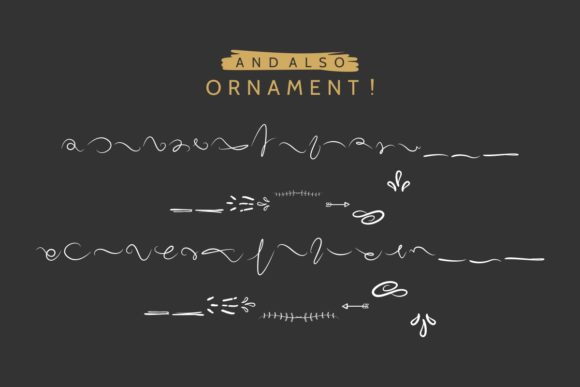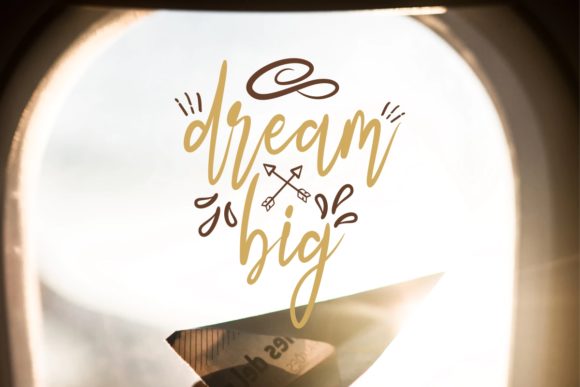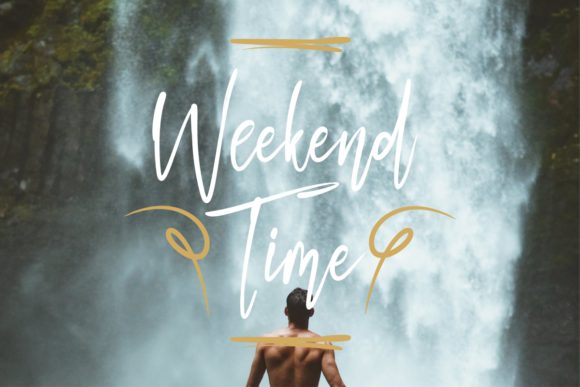
Happy Nature Font
About Happy Nature Font
Happy Nature is a new script handwriting font featuring playful ornaments. This is a sophisticated font will be perfect for any design idea!